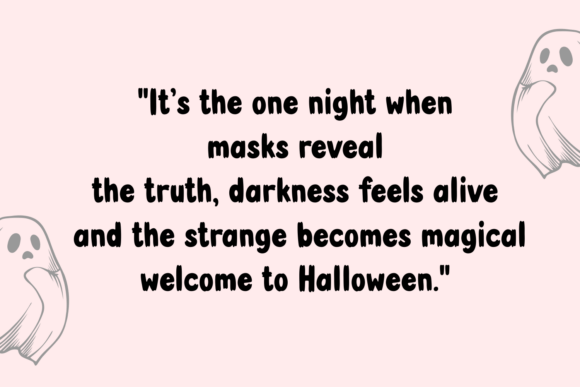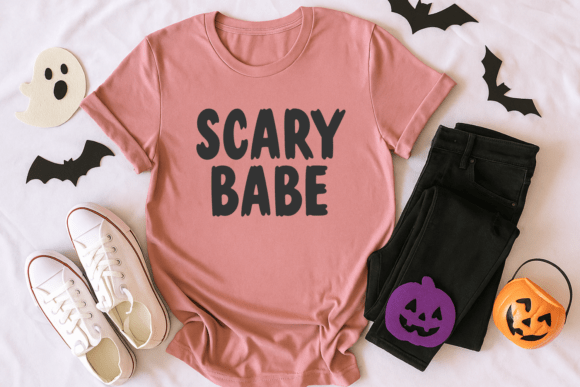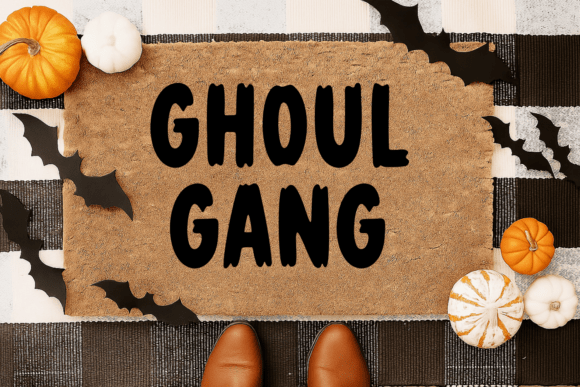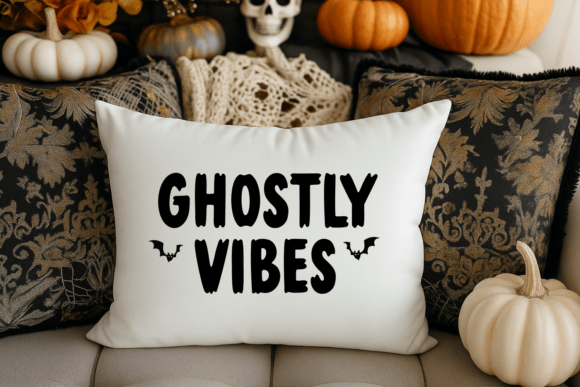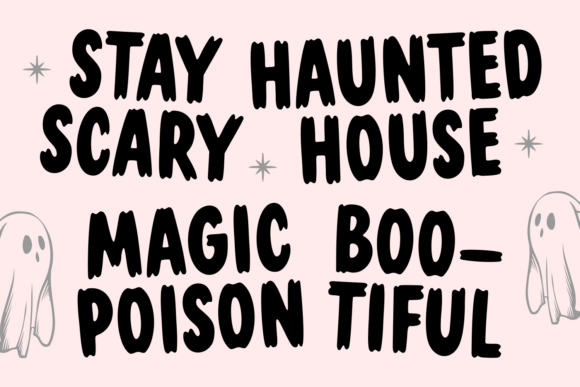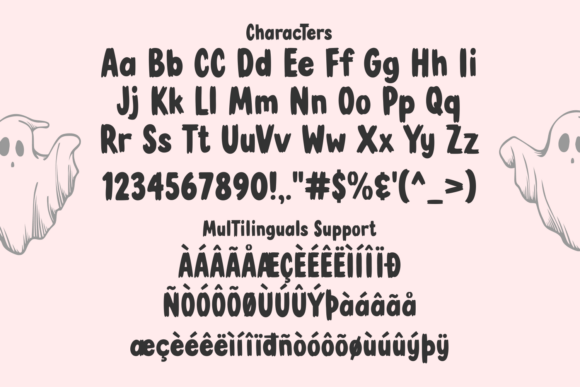
Introduction to Ghostie Bubbles Font by Dreamink 7ntypes Font Font
Fonts play a crucial role in design, and the Ghostie Bubbles Font by Dreamink 7ntypes Font font is a typeface that brings both character and versatility to any project. Whether you’re working on a branding project, a website, or a print design, the Ghostie Bubbles Font by Dreamink 7ntypes Font font offers a unique style that can elevate your work.
Ghostie Bubbles typeface is a cute Halloween display font that combines spooky charm with bubbly fun.
With its rounded, playful letters and a touch of ghostly character, this font is perfect for designs that want to capture the magic of Halloween without being too scary Ideal for party invitations, trick-or-treat bags, childrenโs books, seasonal crafts, stickers, social media posts, and more, Ghostie Bubbles font brings a friendly haunted vibe to any project.
Key Features of Ghostie Bubbles Font by Dreamink 7ntypes Font Font
- โ High-quality typeface designed for professional use
- โ Includes a wide range of glyphs and characters
- โ Ideal for logos, branding, websites, and print
Why Choose Ghostie Bubbles Font by Dreamink 7ntypes Font Font?
The Ghostie Bubbles Font by Dreamink 7ntypes Font font is more than just a typeface โ it’s a design tool that helps you communicate your message with style and clarity. Its unique character set and versatile design make it suitable for a wide range of applications, from elegant invitations to bold headlines.
With its carefully crafted letterforms and balanced proportions, the Ghostie Bubbles Font by Dreamink 7ntypes Font font ensures readability and visual appeal across all mediums.
What makes Ghostie Bubbles Font by Dreamink 7ntypes Font font special?
The Ghostie Bubbles Font by Dreamink 7ntypes Font font stands out with its unique design, exceptional readability, and versatility across various design applications.